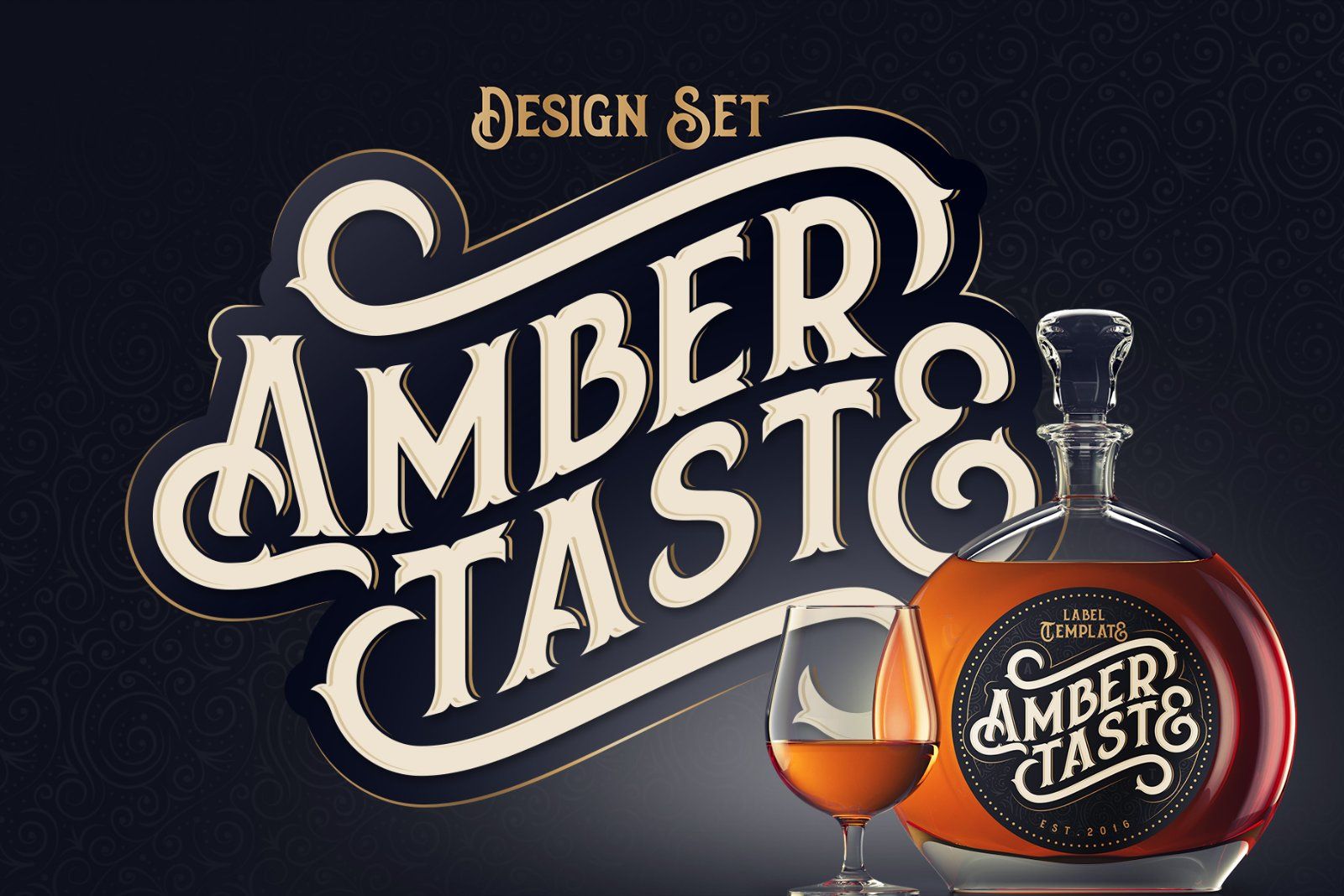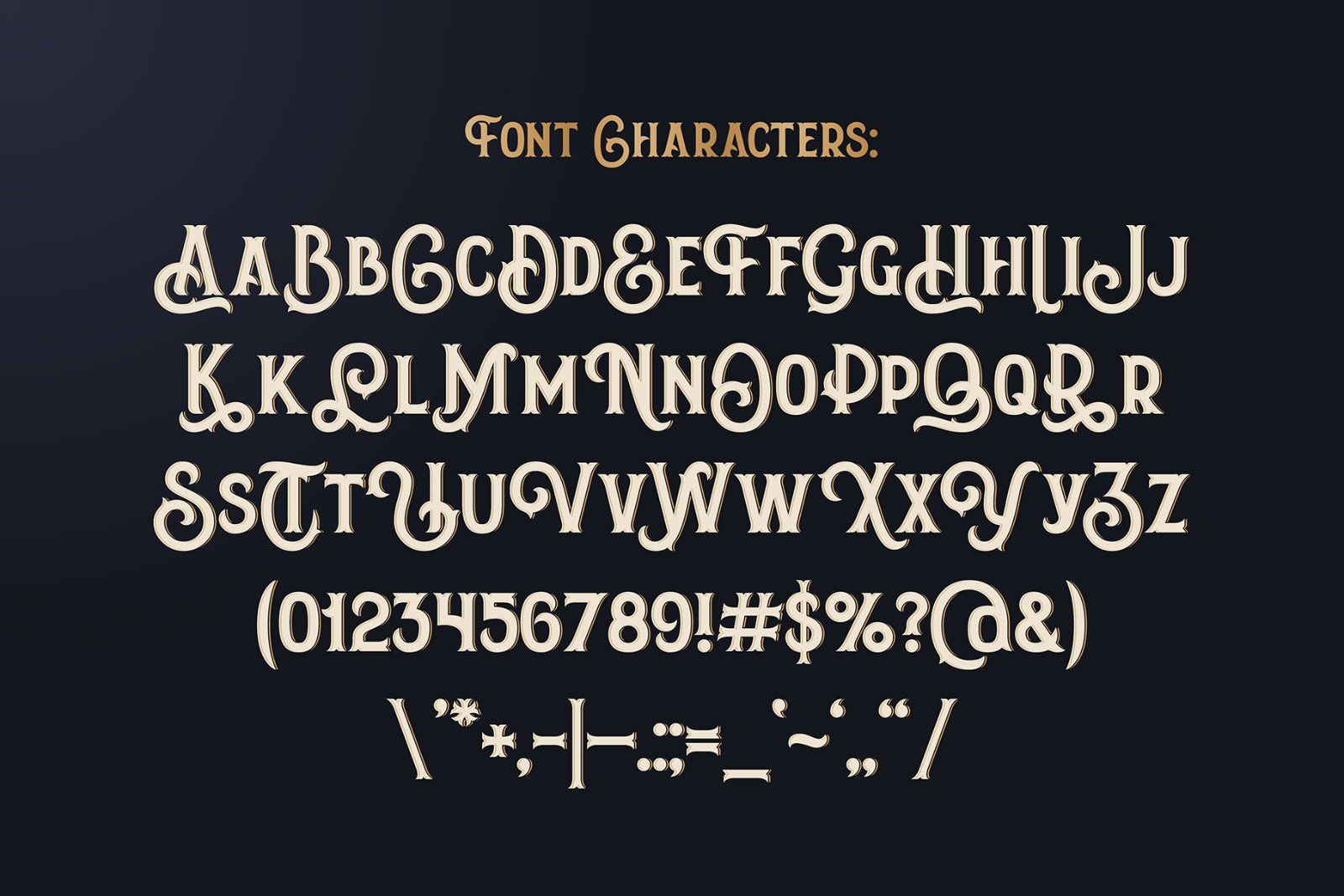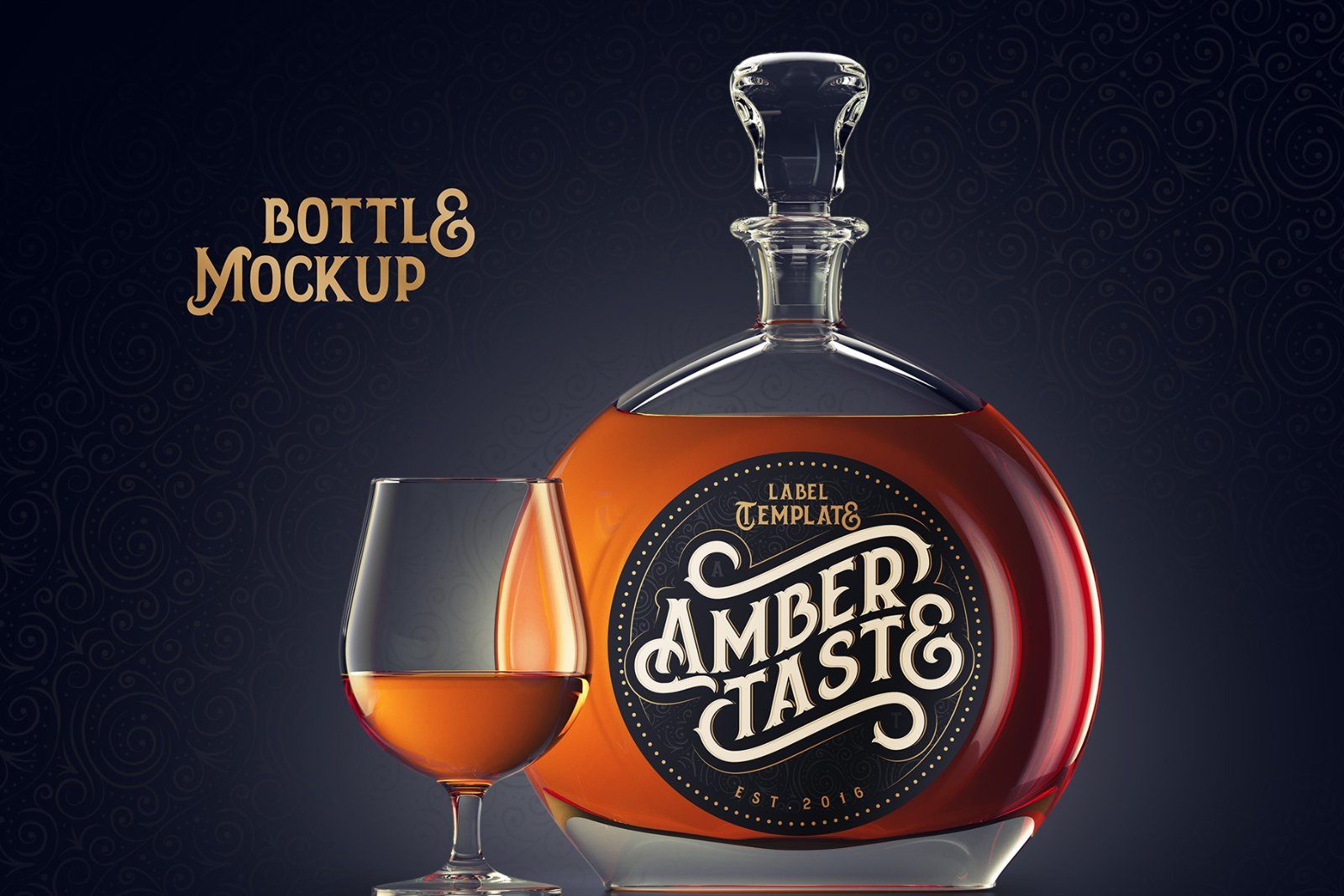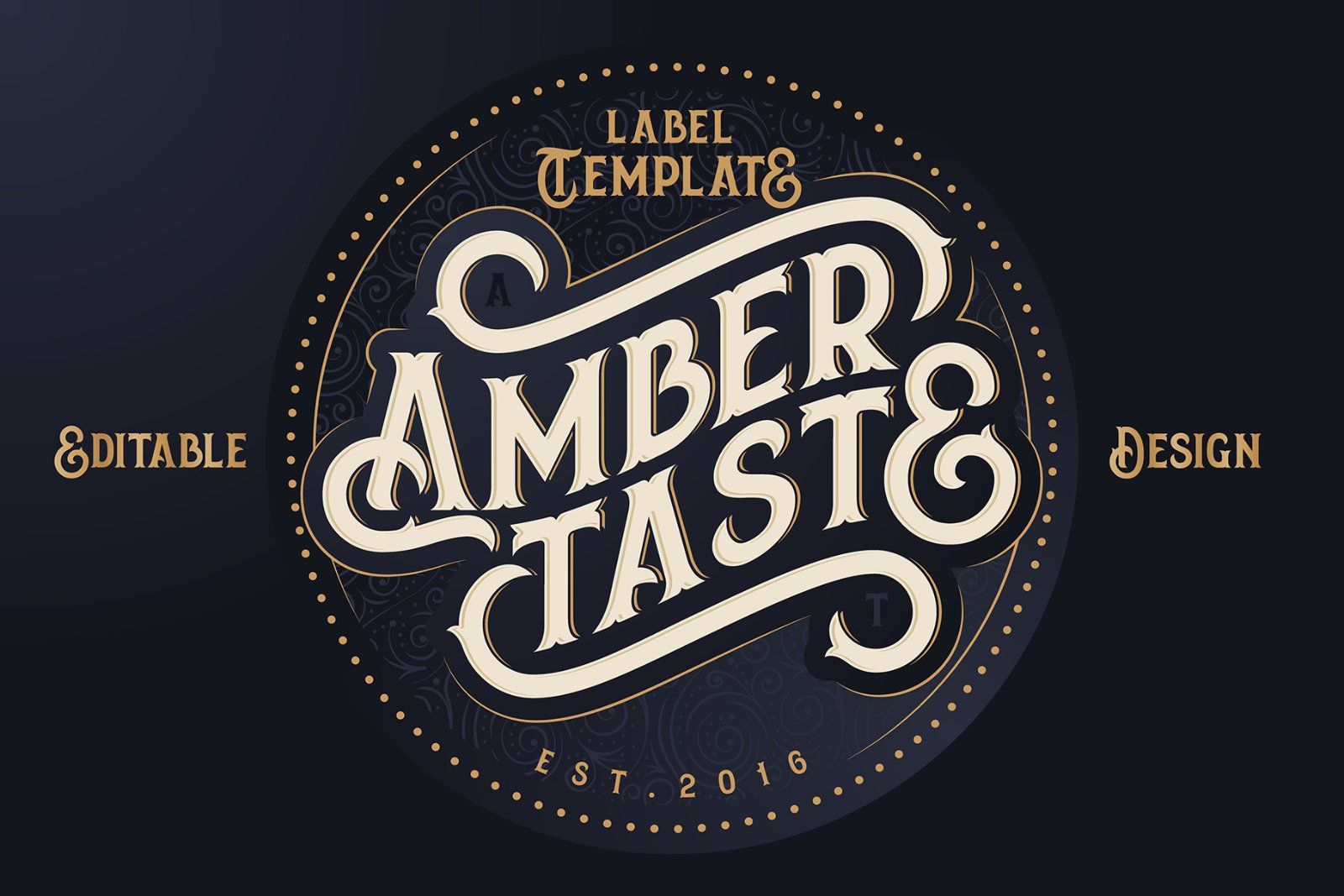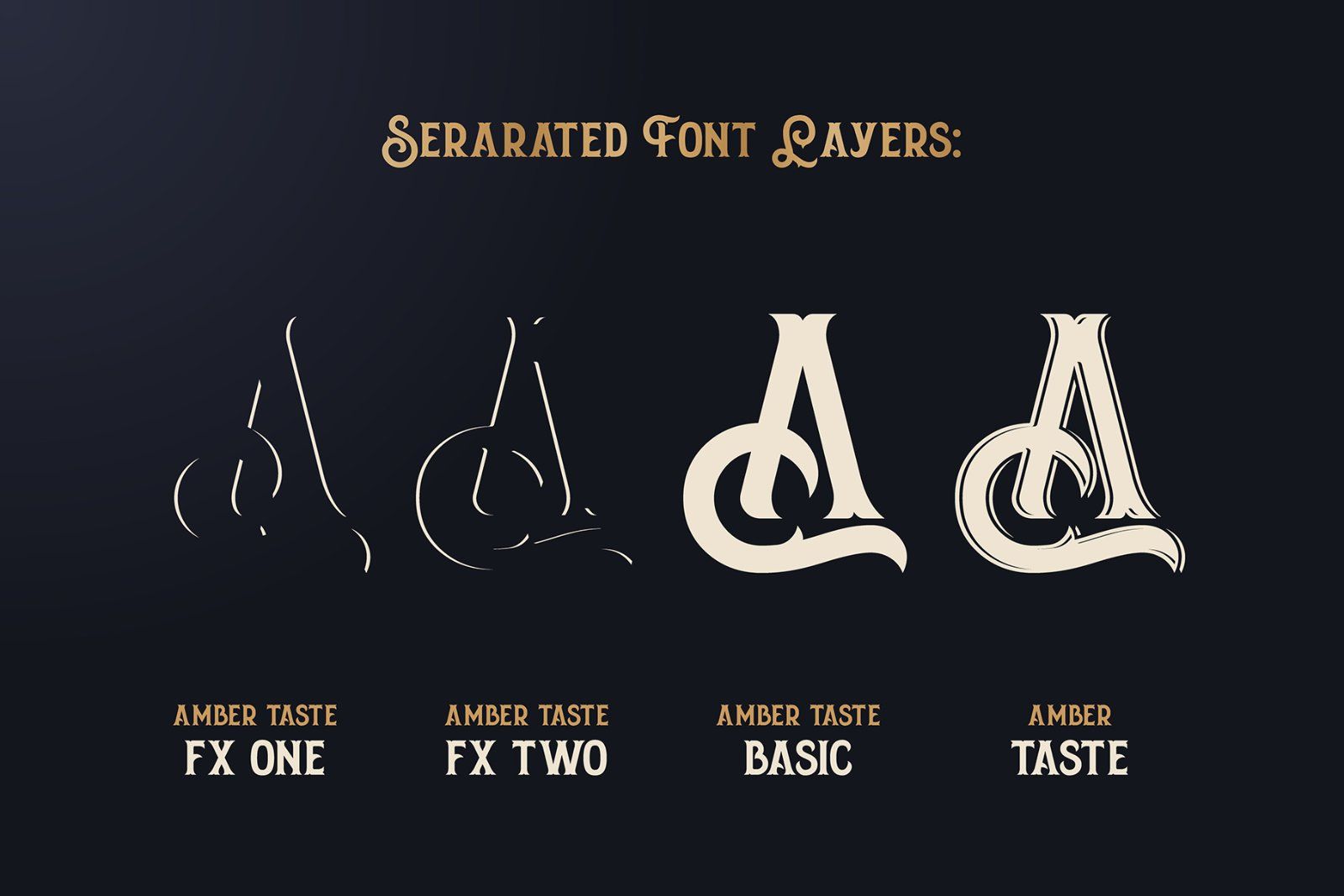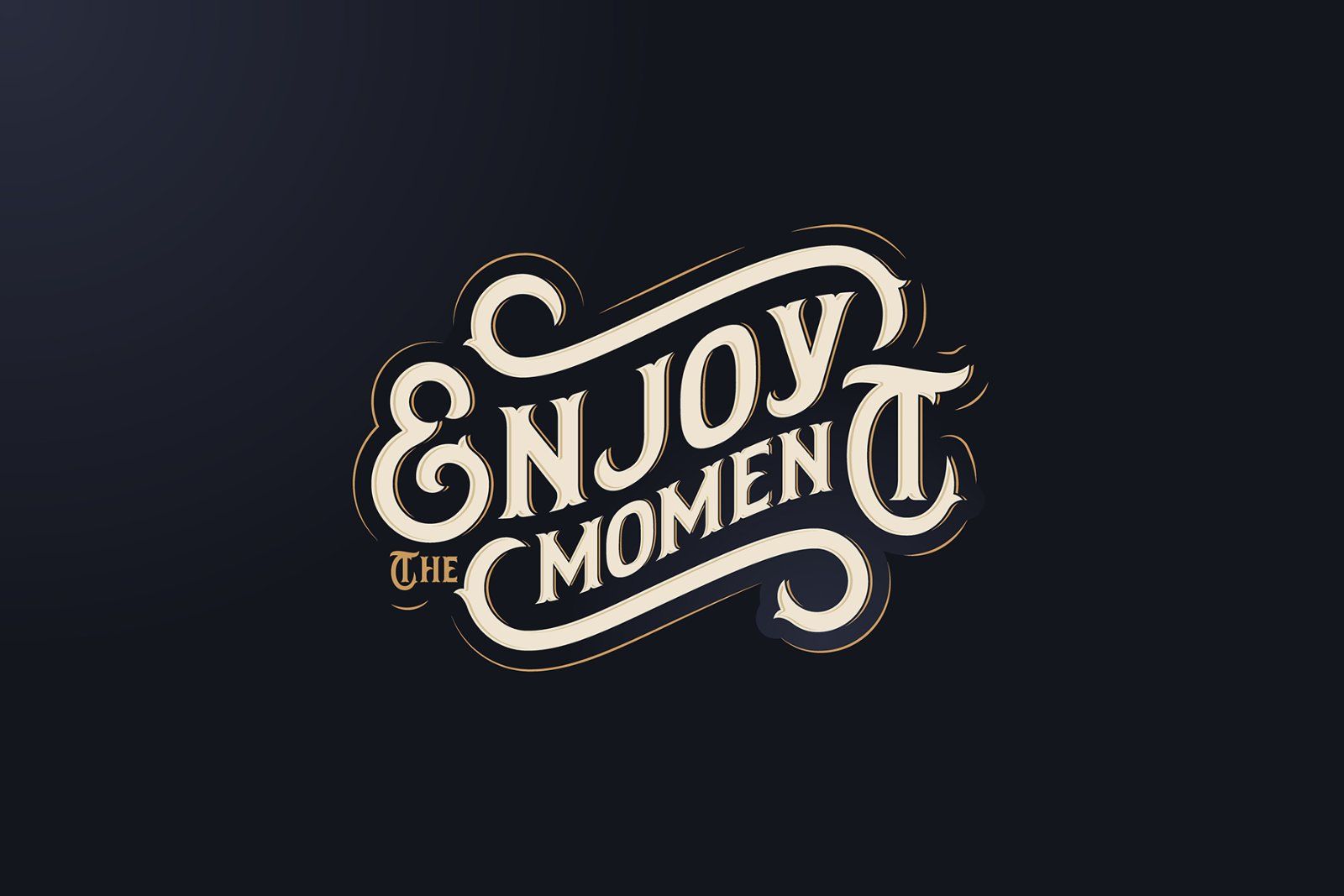
Hello! Presenting a complete kit for creating some alcohol product design. It includes vintage decorative font, vector label template and high quality 3d render of a brandy bottle mockup.
Note: This font contains only Latin characters (all available characters you can see on the second screenshot)